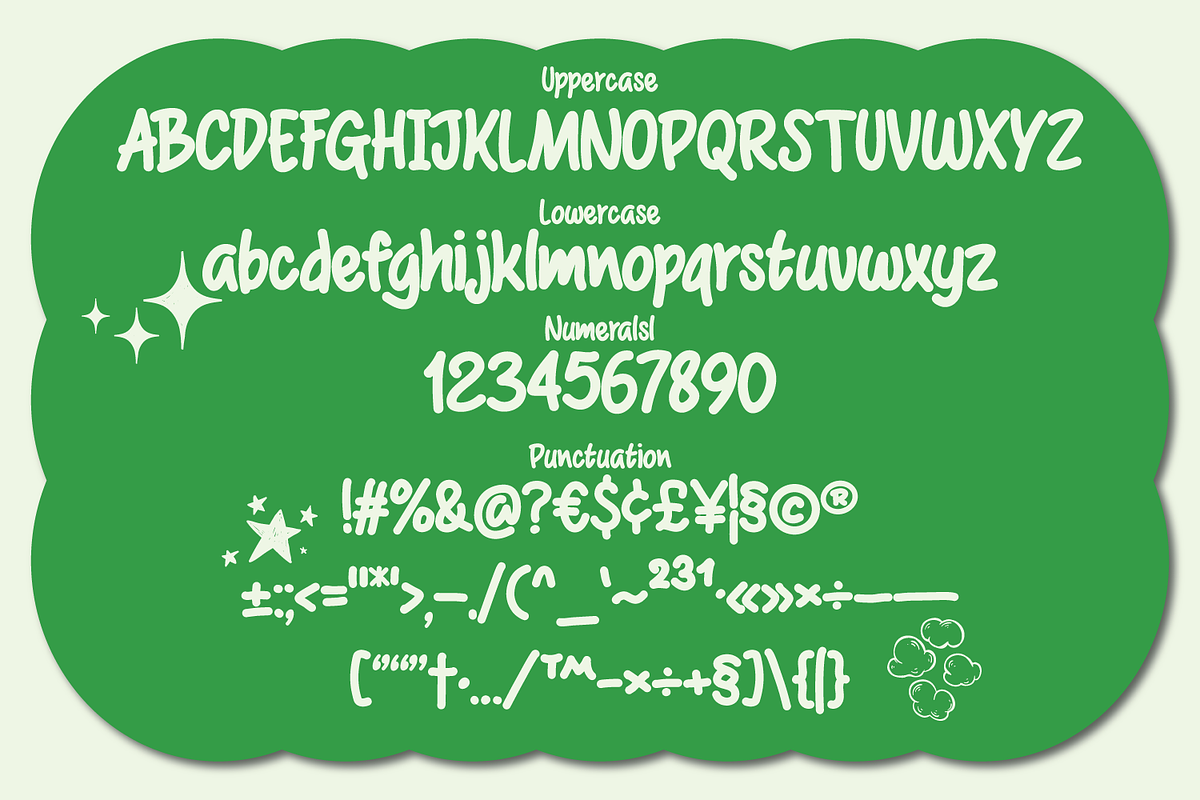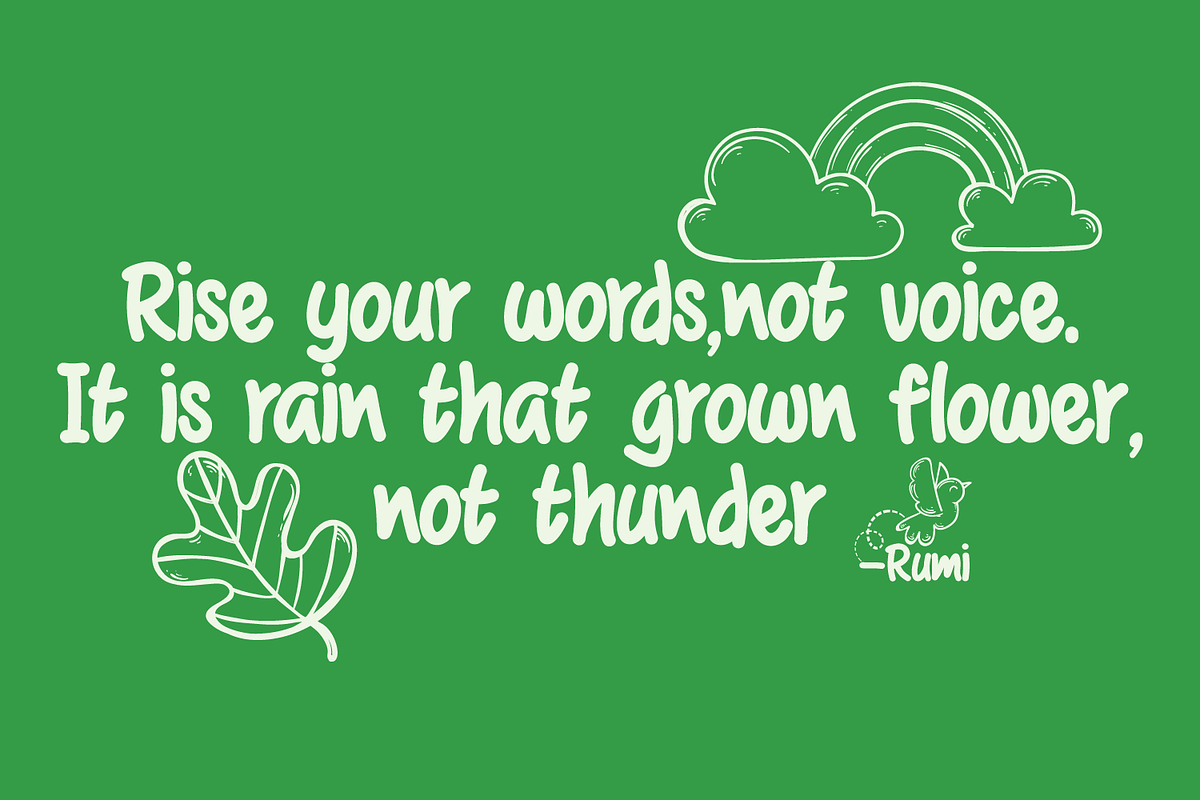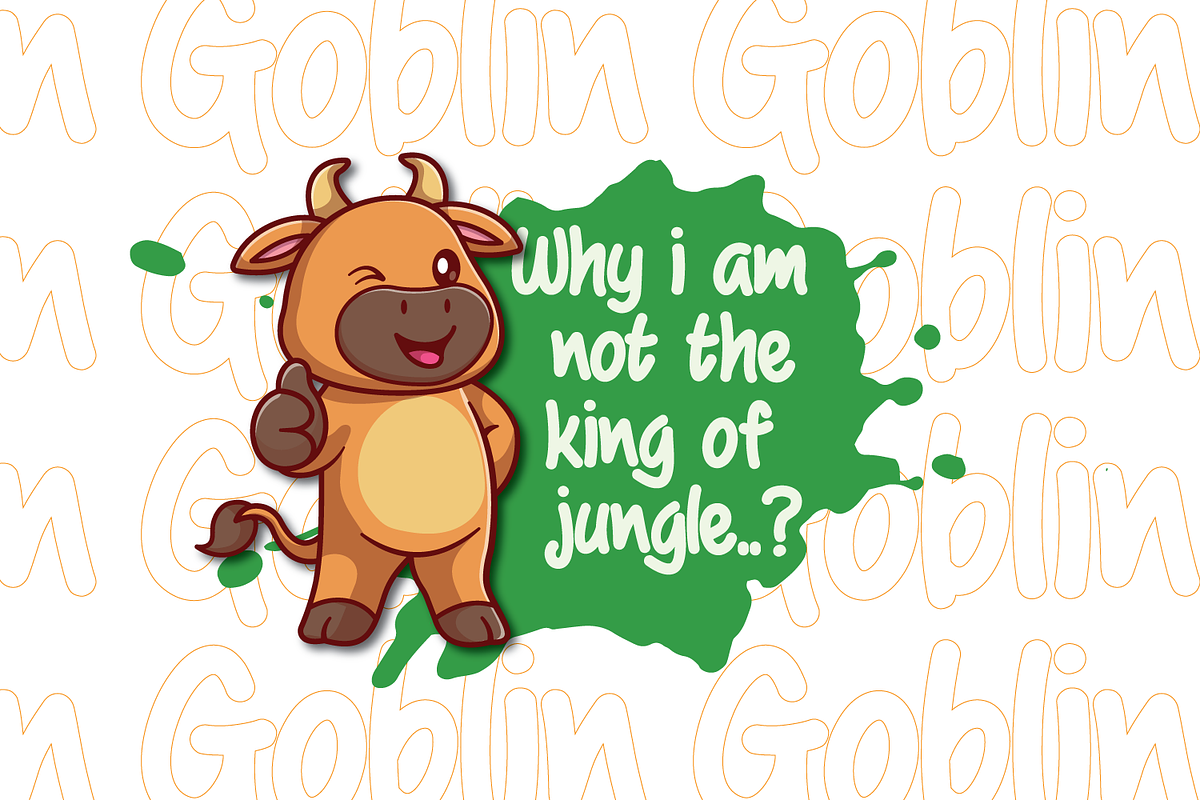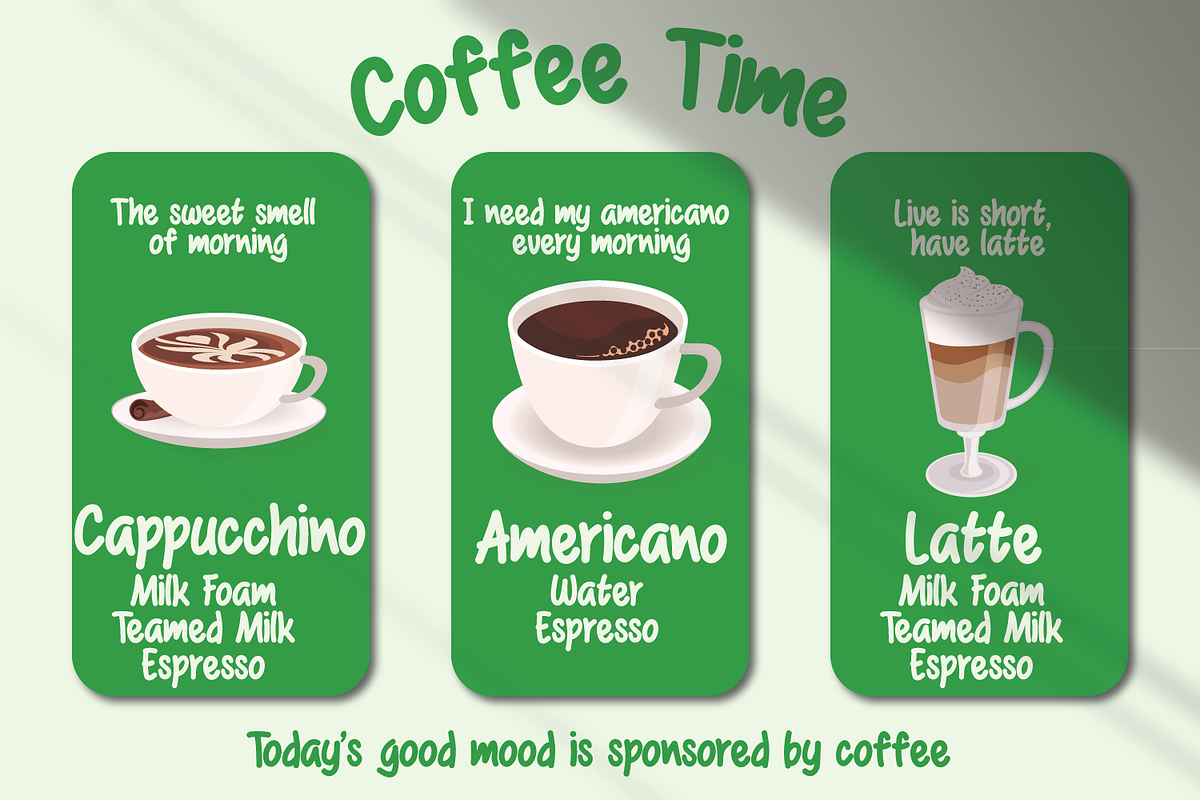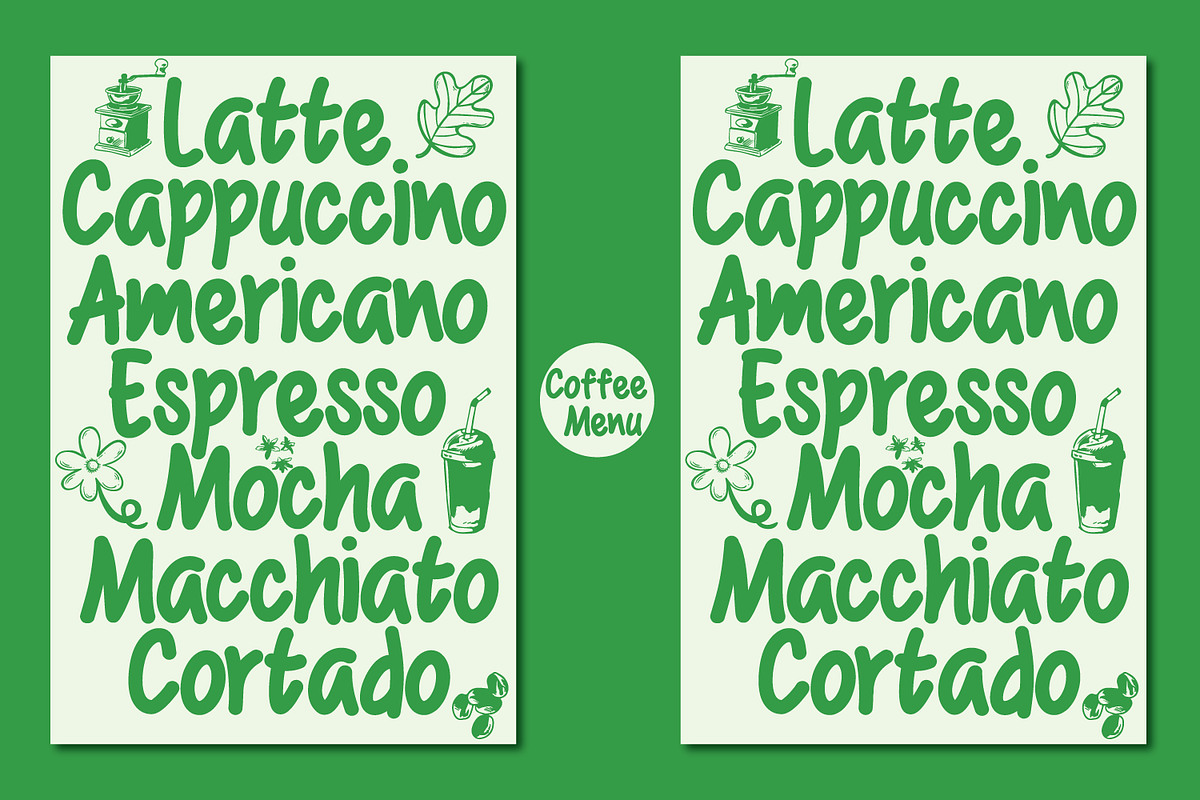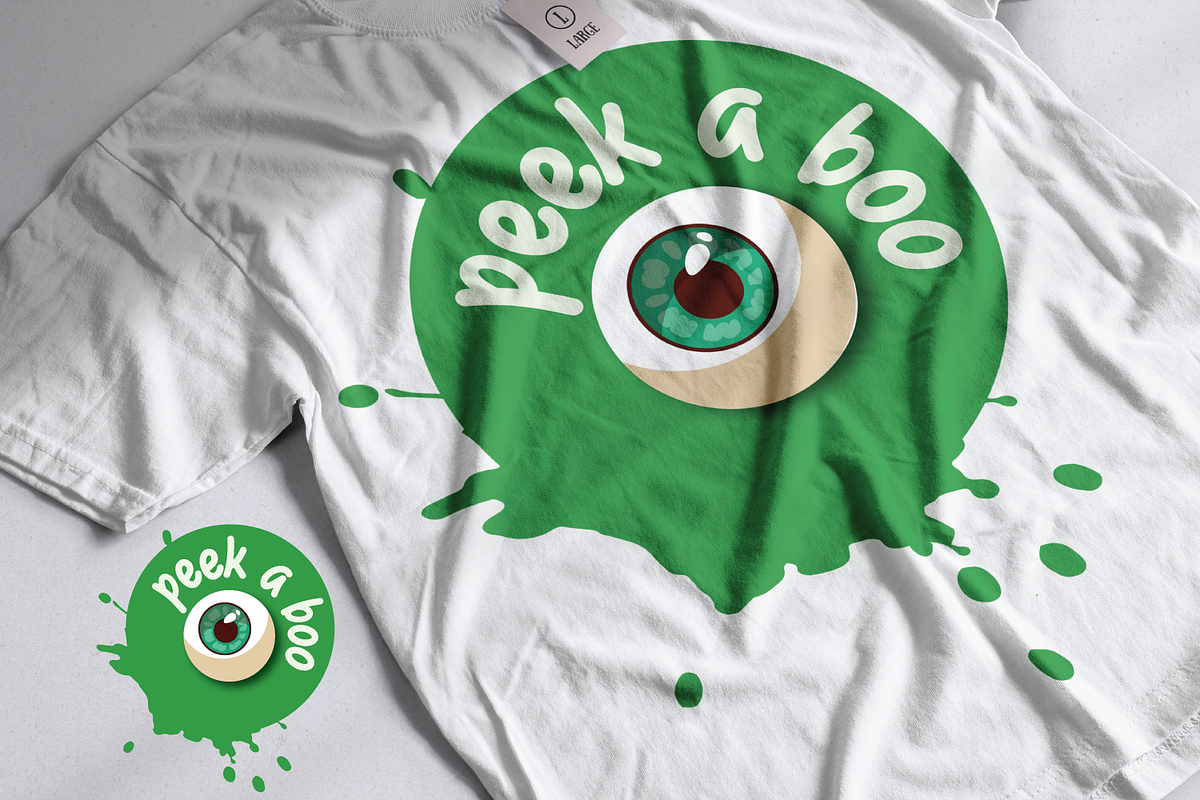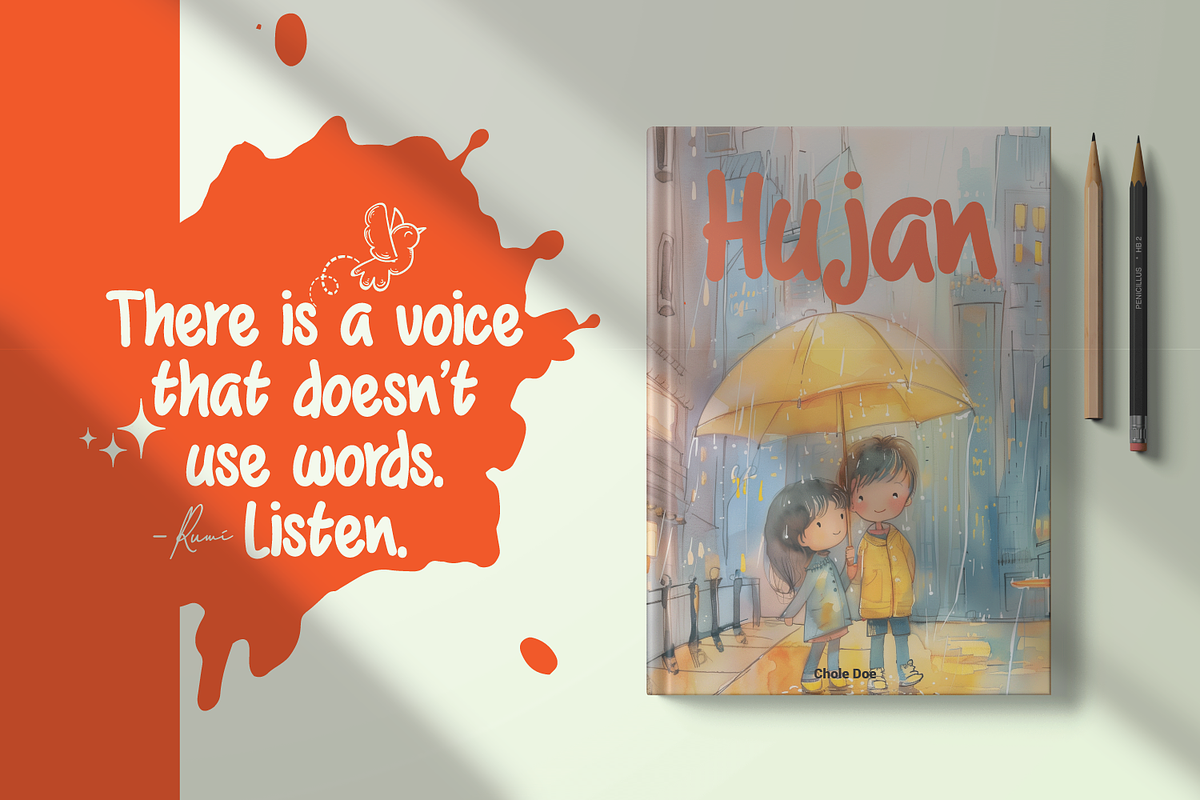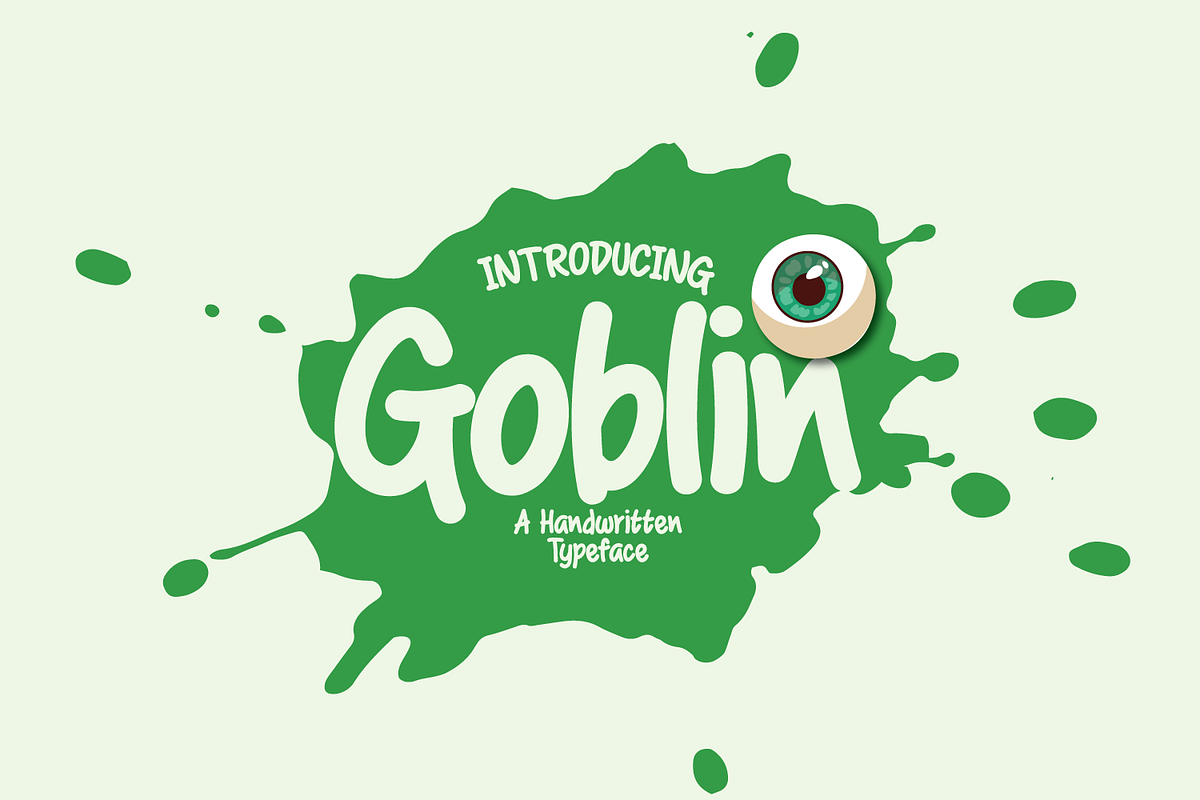
Goblin
Goblin is a handwritten display font that has the ability to bring life to every project it touches. Whether enhancing a cheerful children's illustration or adding character to a sophisticated magazine title, Goblin brings an authentic charm that captivates viewers.